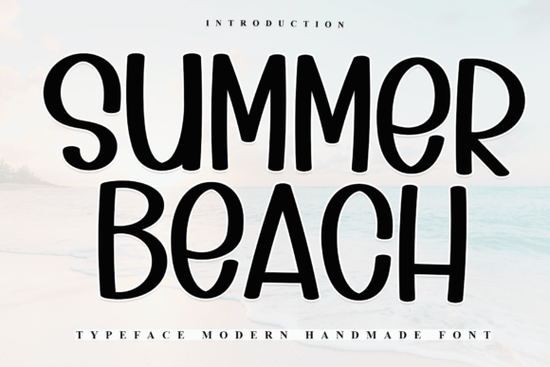
If you're looking for a friendly, sun-drenched handwritten font that feels personal and relaxed not stiff or overly polished then the Summer Beach Font is worth your attention. It’s designed with natural stroke variation and subtle irregularities, so it reads like something written by hand on a warm afternoon: slightly uneven, full of character, and quietly confident. That makes it especially useful if you’re creating greeting cards, printable party invites, small-batch packaging, or social media graphics for a beach-themed shop or summer collection.
Who actually uses this kind of font and why?
Designers working on seasonal collections often reach for fonts like Summer Beach Font when they want to avoid generic script fonts that look too uniform or digital. Crafters use it for vinyl-cut signs, chalkboard-style labels, and handmade gift tags. Print-on-demand sellers find it works well for mugs, tote bags, and wall art aimed at customers who love coastal aesthetics or nostalgic summer vibes. Small businesses think local ice cream shops, boutique swimwear brands, or wedding stationery studios also appreciate how approachable it feels without sacrificing readability.
How does it compare to other popular script fonts?
Unlike tightly spaced, ultra-thin scripts that can fade on light backgrounds, Summer Beach has gentle contrast and open letterforms, making it easier to scale down for small labels or up for large prints. It’s less formal than wedding font script fonts, which tend to lean elegant and traditional. It’s also warmer and more grounded than something like Gloomy Unseen Font, which leans moody and atmospheric. If you’ve used Hello Honey Font before, you’ll notice Summer Beach shares its casual charm but with softer curves and less bounce. And while Charlie Script Font gives off a confident, modern energy, Summer Beach feels quieter, like it’s smiling instead of posing.
What kinds of projects work best with it?
You don’t need to be designing for a tropical resort to get good mileage from this font. Here are a few real-world uses:
- Greeting cards especially birthday, thank-you, or “just because” notes where warmth matters more than formality
- Small business signage like a hand-painted “Open” sign for a pop-up lemonade stand or café
- Digital stickers and Canva templates it pairs nicely with simple line art or watercolor textures
- Branding elements logos for lifestyle blogs, wellness coaches, or craft supply shops with a relaxed, human-centered voice
- Invitations baby showers, summer picnics, or backyard weddings where guests expect charm over ceremony
It’s not ideal for long paragraphs or dense text blocks like product descriptions or blog posts since it’s a display font first. But for short phrases, headings, or accent text? It adds instant personality.
Pairing tips that actually work
Because it’s a single-weight script, pairing it with a clean, neutral sans serif (like Montserrat, Lato, or even system fonts like Inter or Helvetica) keeps things balanced. Avoid stacking it with another decorative script it can feel crowded or indecisive. For print projects, test spacing carefully: some letters (like lowercase “f” or “g”) have longer descenders, so give them breathing room. If you’re using it in Cricut Design Space or Silhouette Studio, convert to outlines before cutting to preserve the natural flow of the strokes.
Is it beginner-friendly?
A note about authenticity
What stands out about Summer Beach isn’t just how it looks it’s how it feels. The slight wobble in the baseline, the variation in stroke width, the way the “a” and “e” sit just a little lower than the rest it all adds up to something that doesn’t scream “designed,” but rather “made.” That resonates with buyers who value handmade authenticity, especially in markets like Etsy or Instagram shops. It’s the kind of detail that helps your project stand out next to mass-produced alternatives even if most people can’t name why.